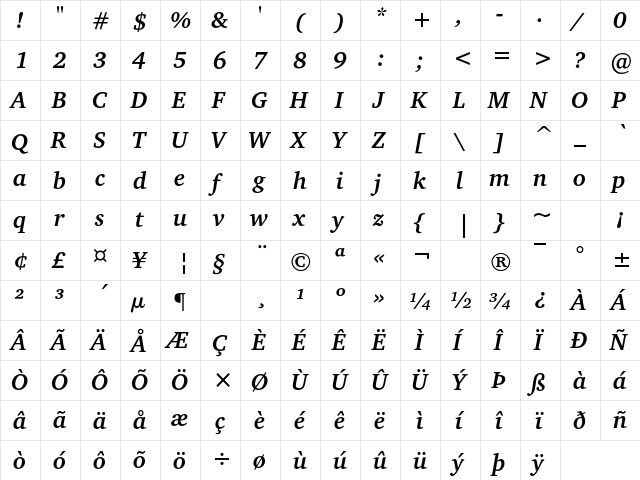
Charter BT Pro Bold Italic
| Foundry | Bitstream Inc. |
| Designer | Matthew Carter |
Design Context for Charter BT Pro Typeface
Charter BT Pro offers clean, dependable letterforms without strong stylistic allegiance, making it a practical choice for designers who need flexibility. Its italic angle brings a sense of urgency and motion to the letterforms. The heavy weight commands attention and anchors typographic hierarchies.